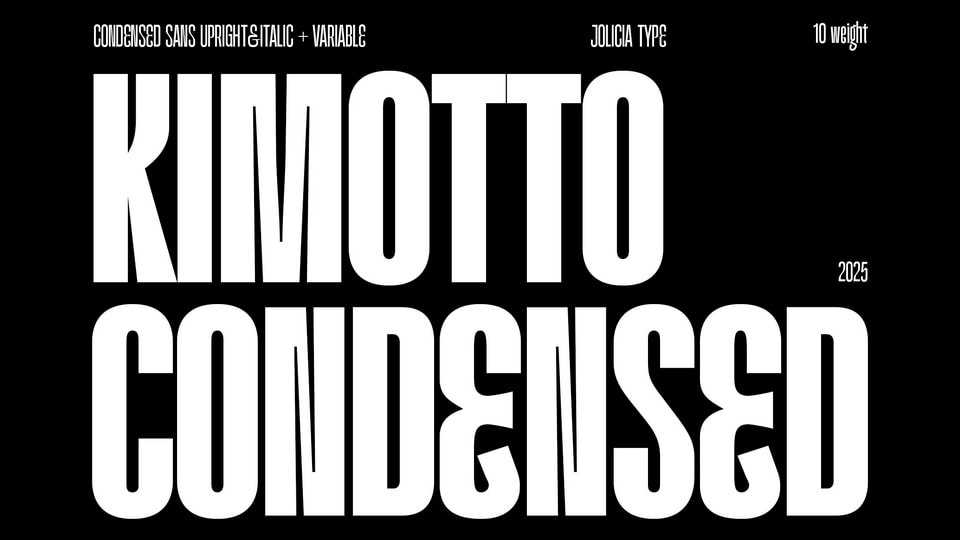
Download Kimotto Condensed font, a modern sans-serif condensed typeface designed to be both bold and space-efficient. With 10 weights ranging from Light to Bold, plus true Italics at a 15° angle, it offers maximum versatility for any design project.